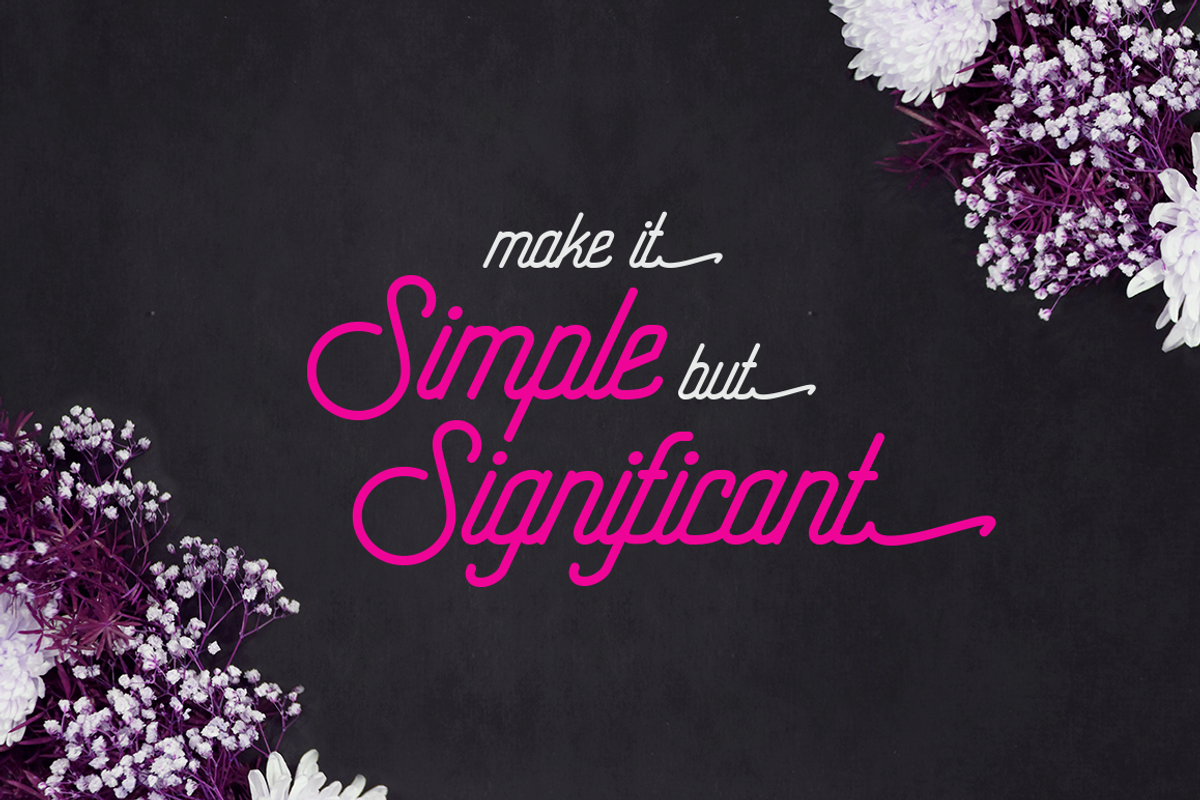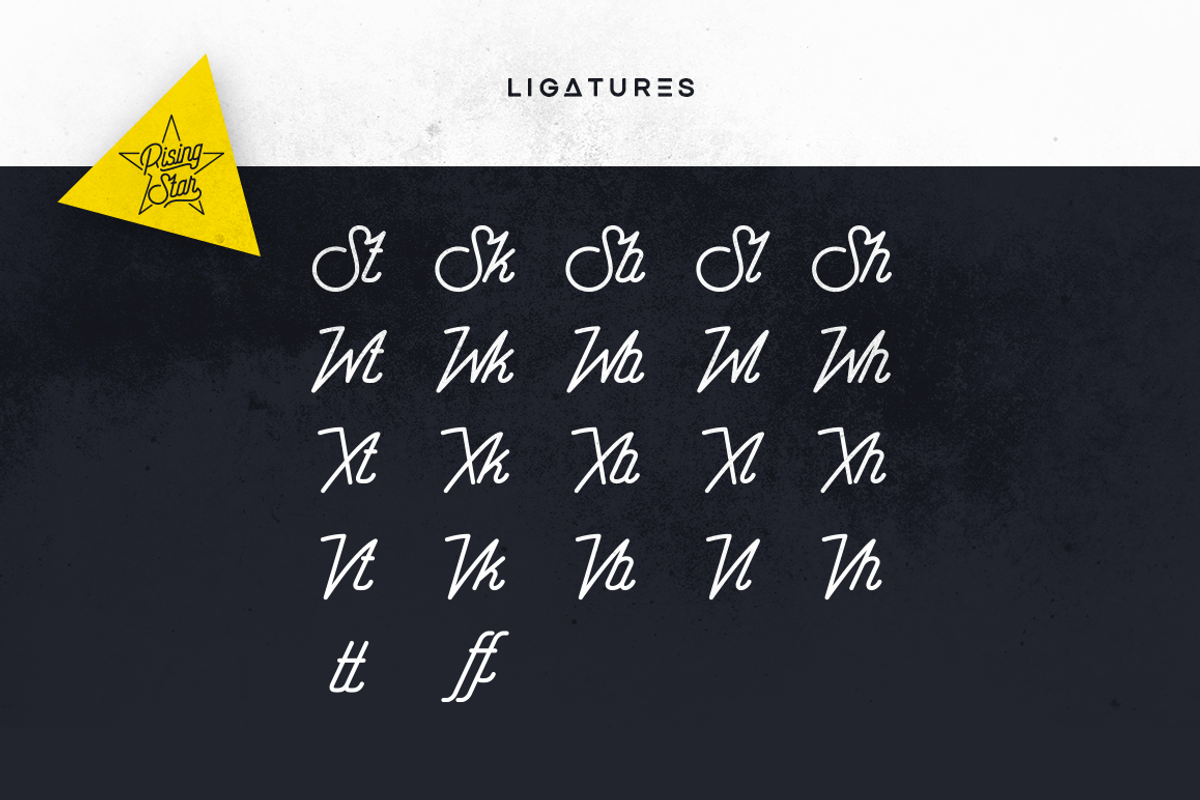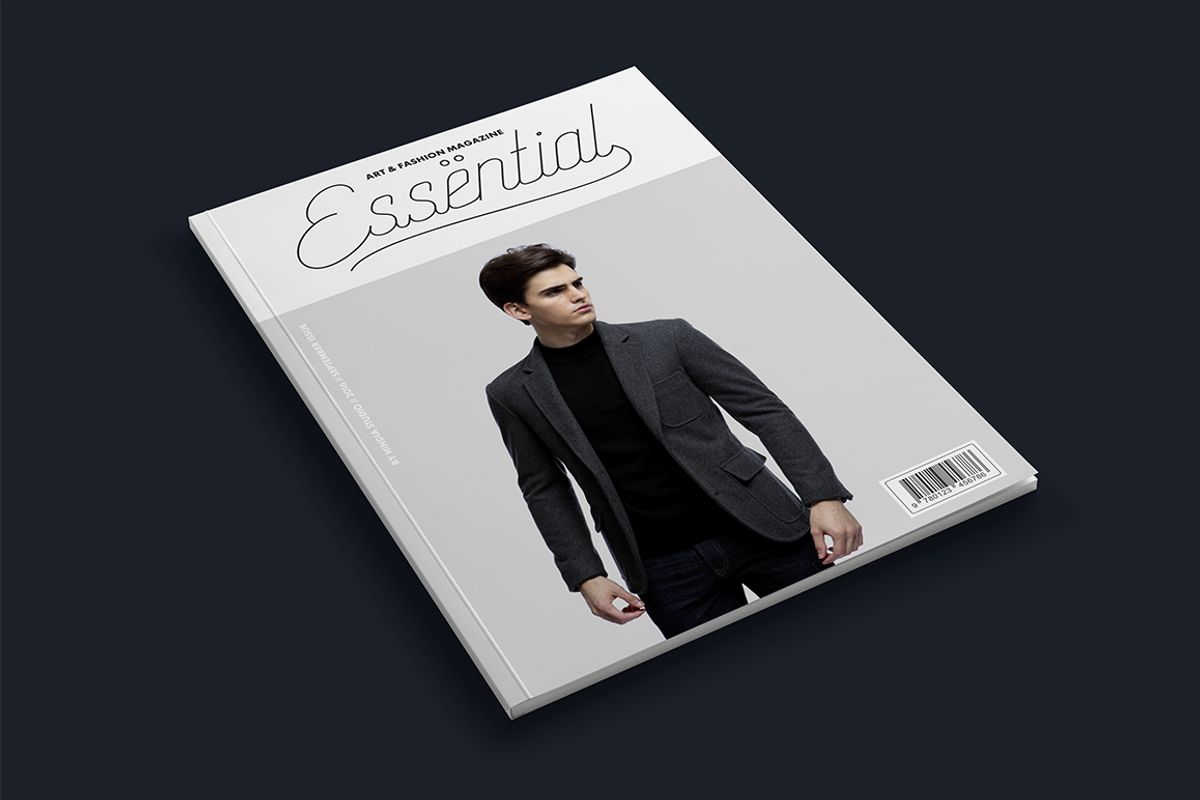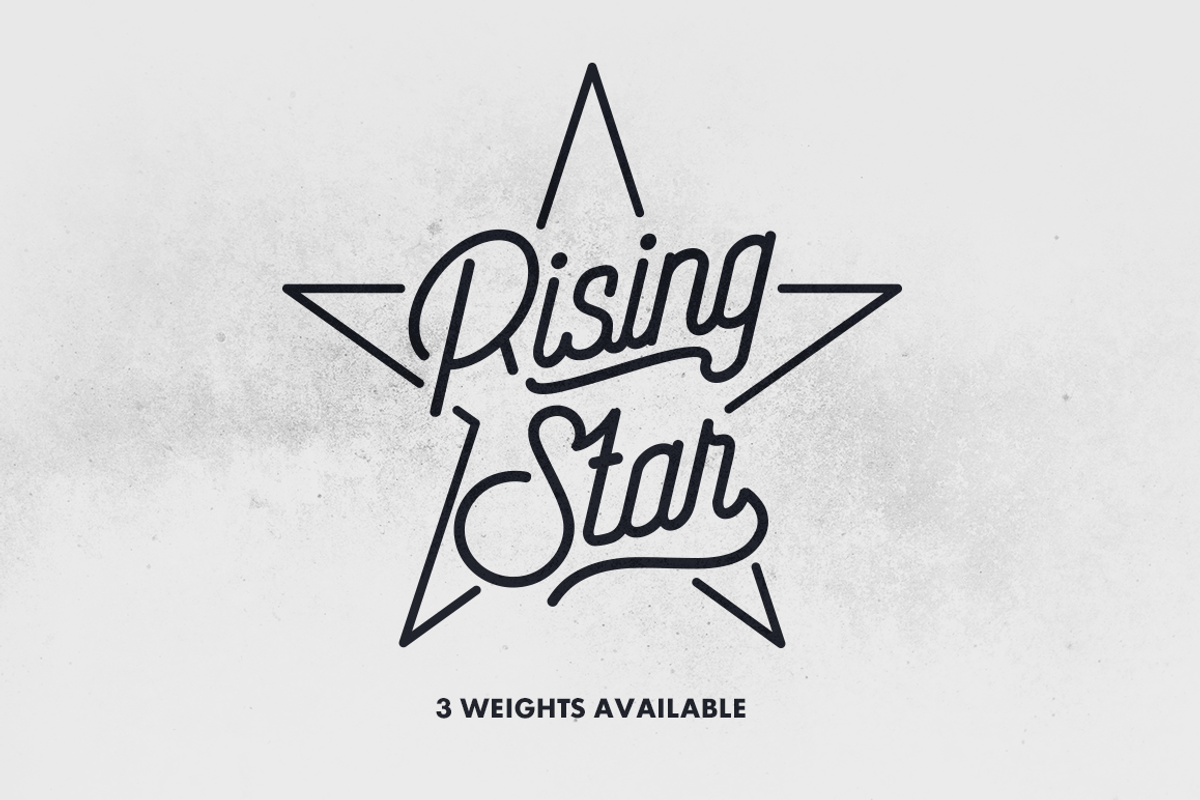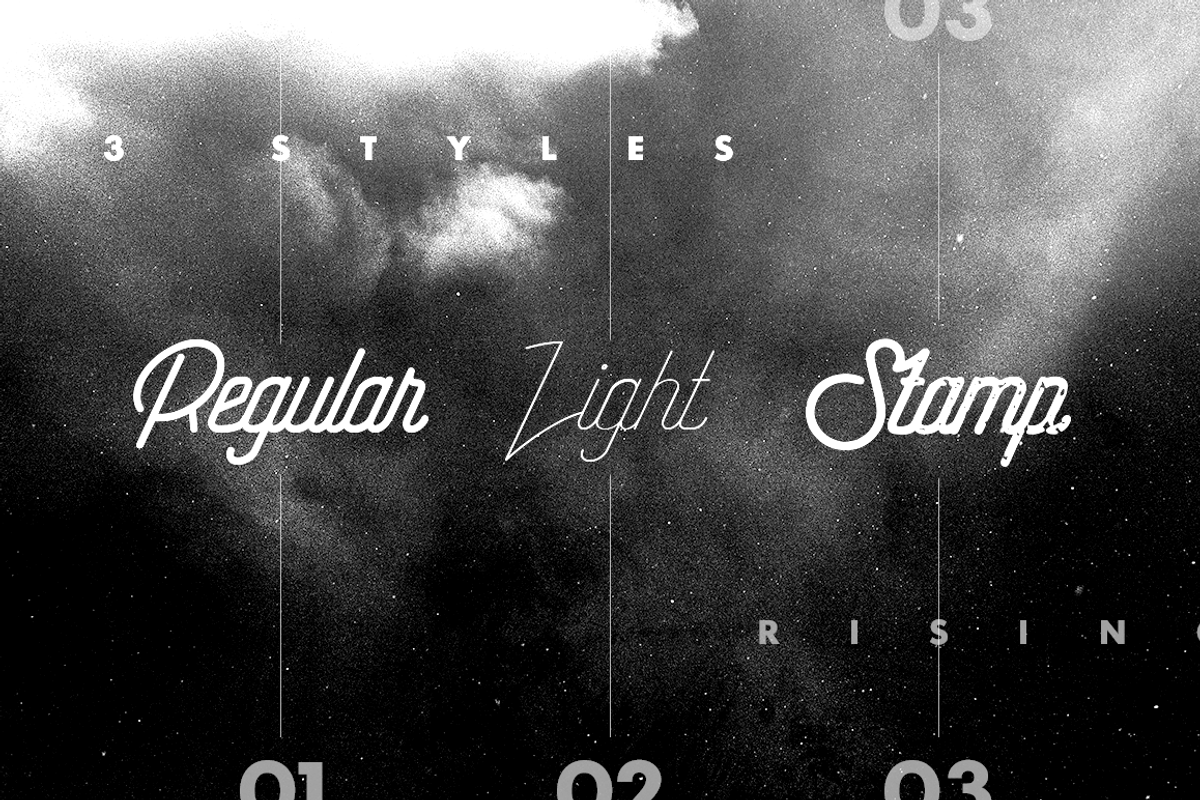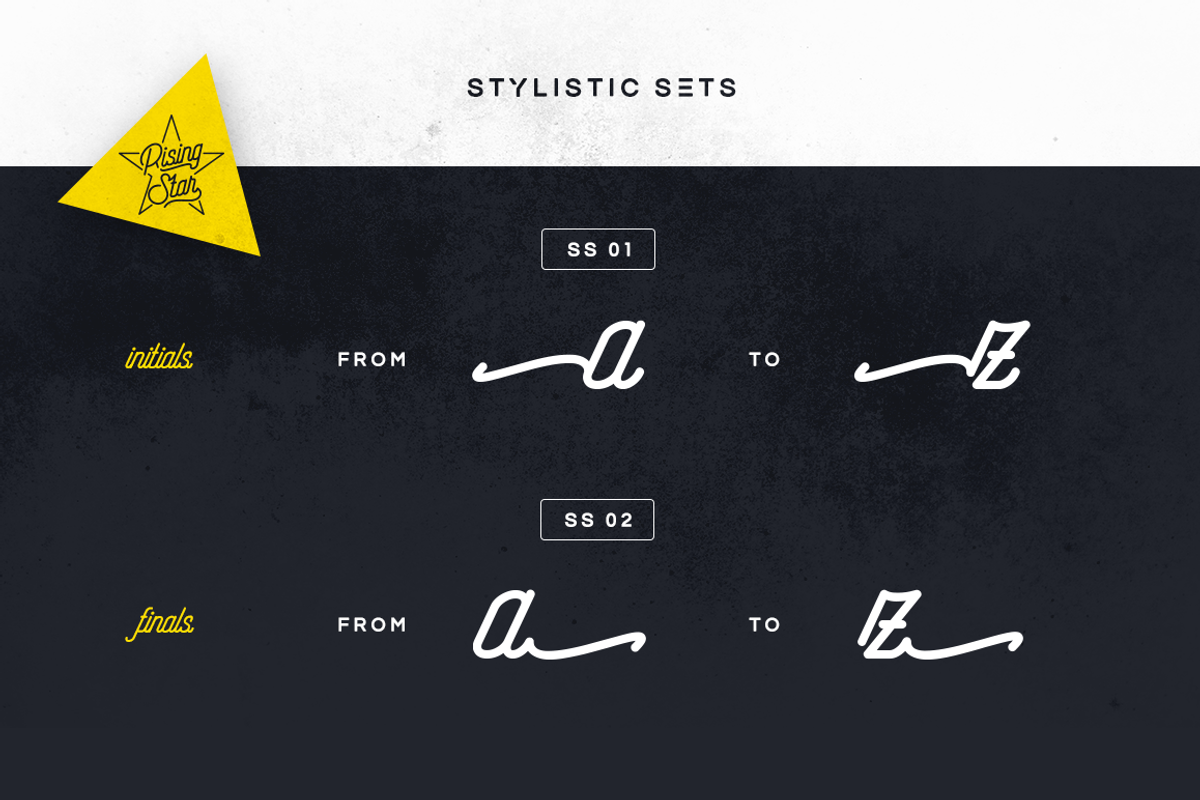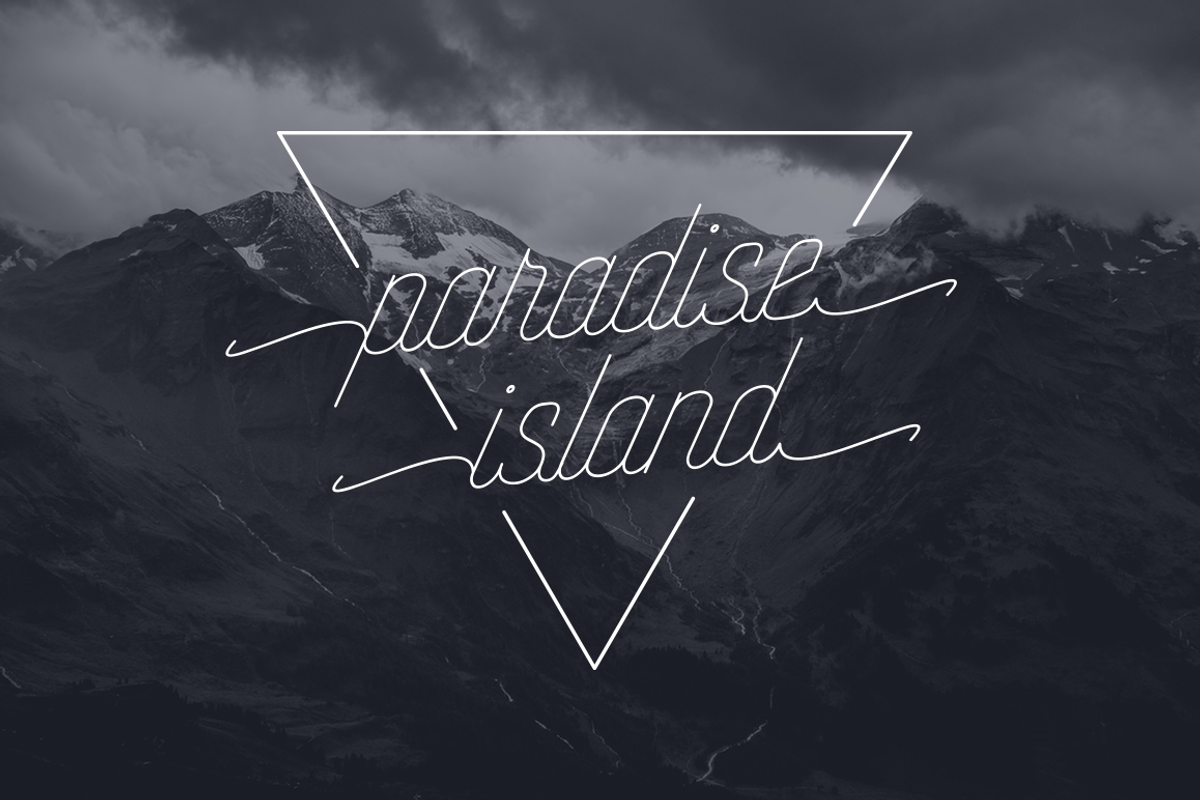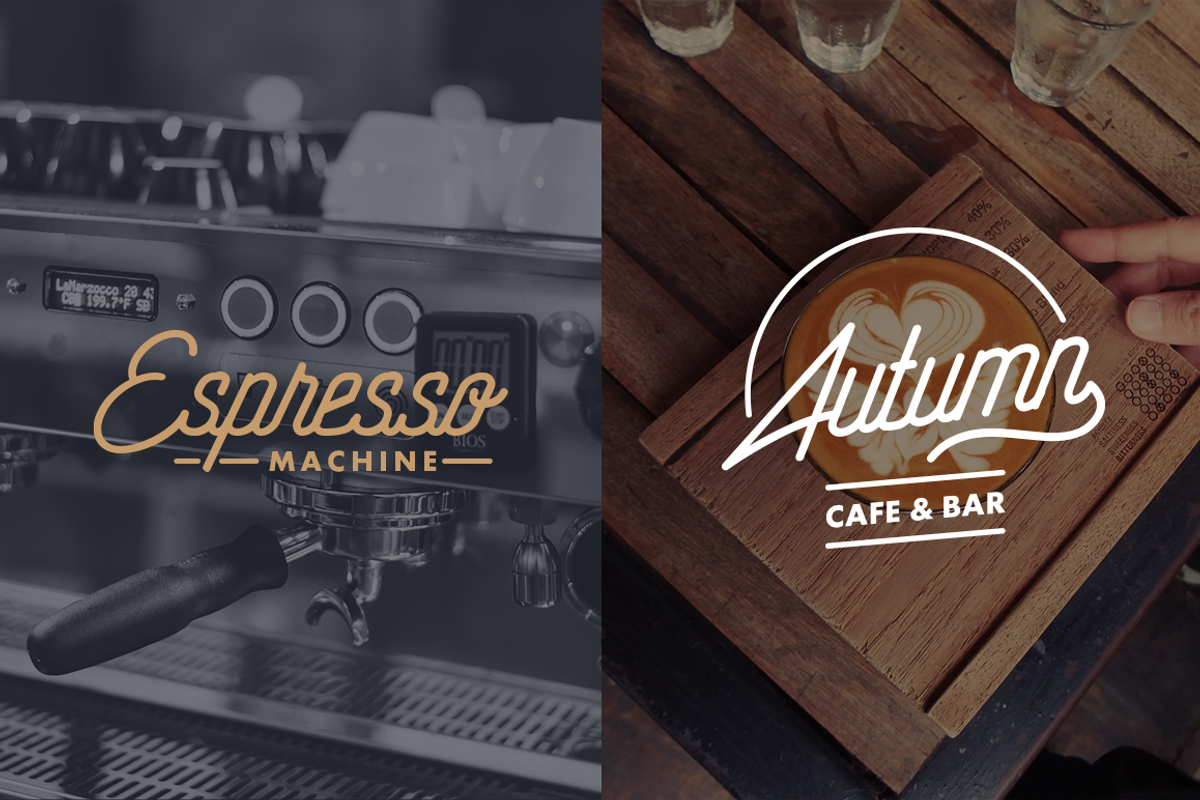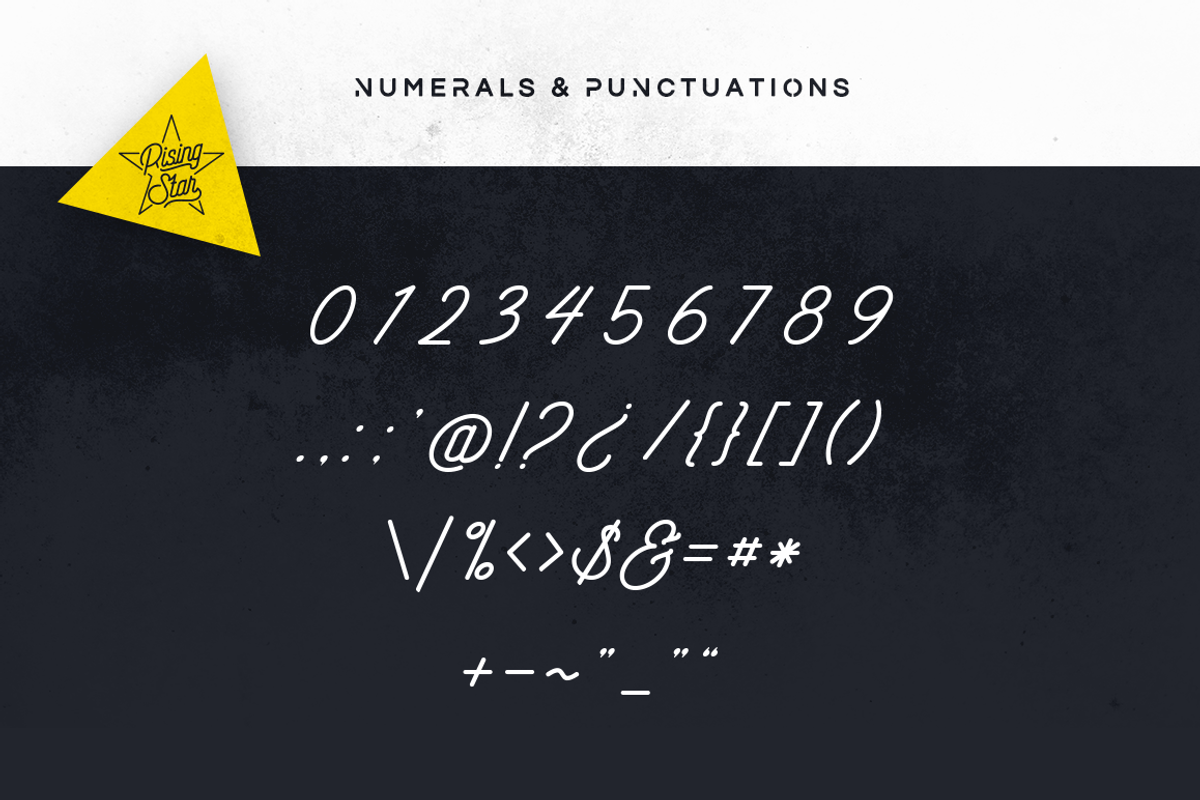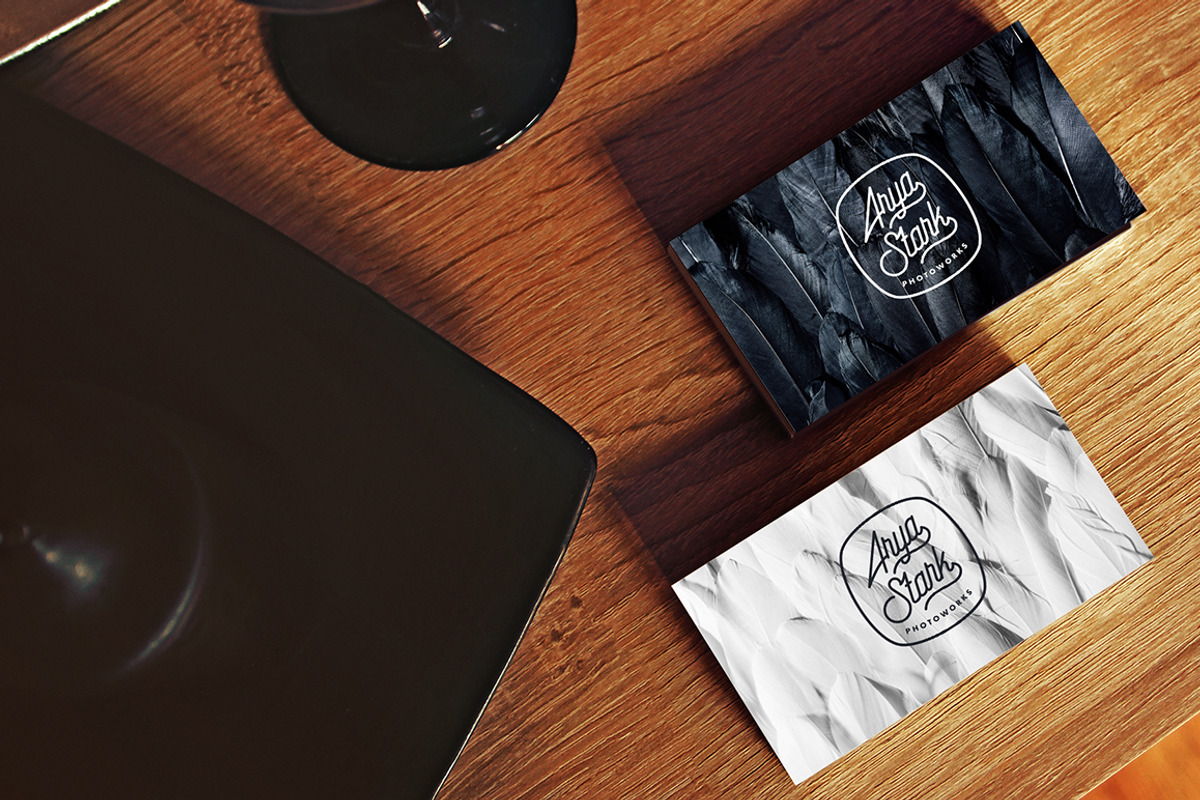
Rising Star Font
RISING STAR | Let it shine
Rising Star is a modern monoline script with an adventurous mood. It is inspired by, well, nostalgic summer camp, in the wood and near the lake, a warm laught with best friends and unlimited stars in the clear night sky. Rising Star turns our nostalgia for summer into a dynamic and vivacious font that comes in three different styles to choose from; Regular, Light, and Stamp.
Rising Star comes in three weights making the font versatile and useful both for web and print; think websites, posters, menus, logotypes, cards, signage, packaging and whatnot. Rising Star is friendly, sturdy and it makes a statement, but most of all, it is fun to play with.
- Rising Star Regular
- Rising Star Stamp
- Rising Star Light
- Uppercase/Lowercase
- Stylistic alternates